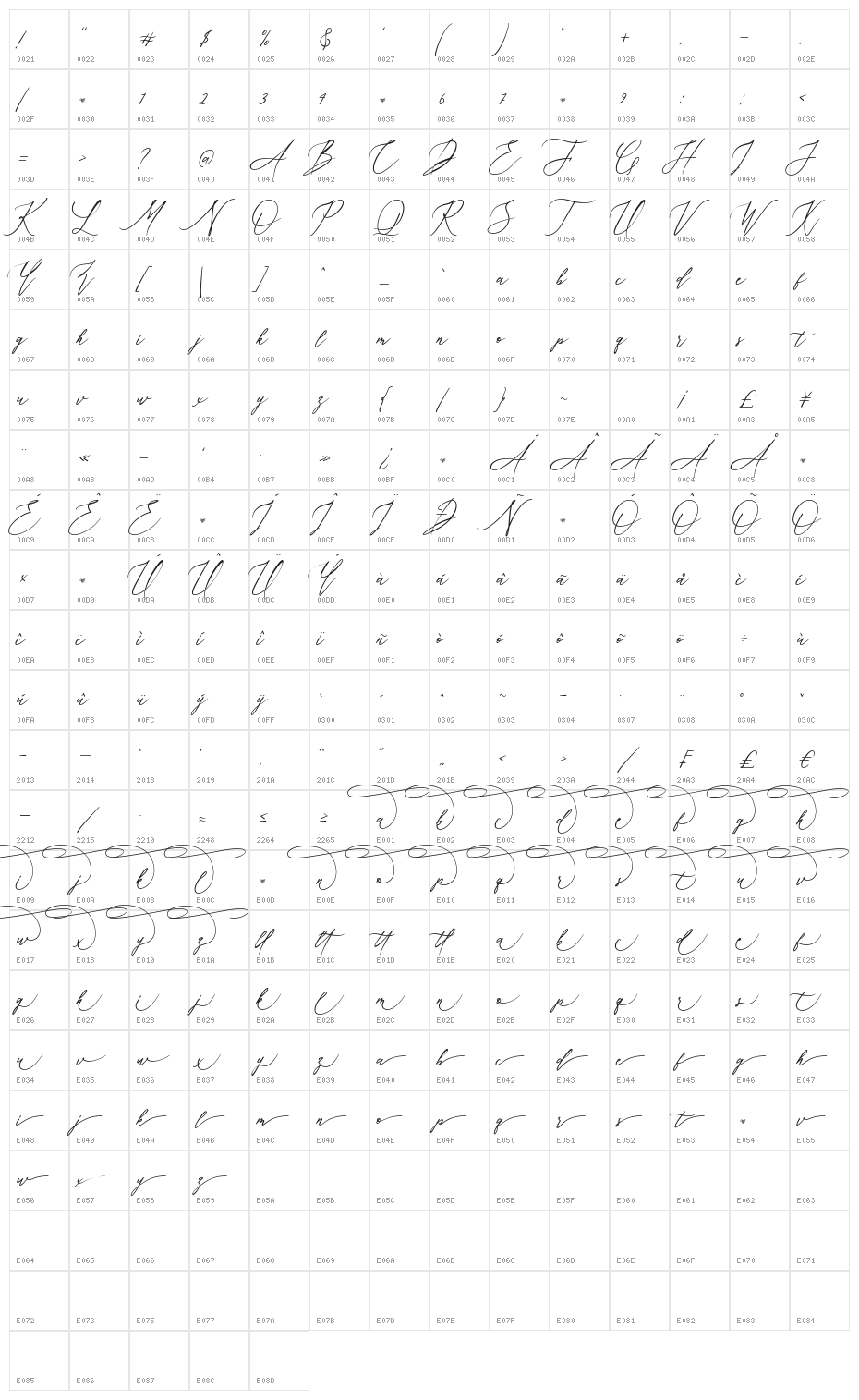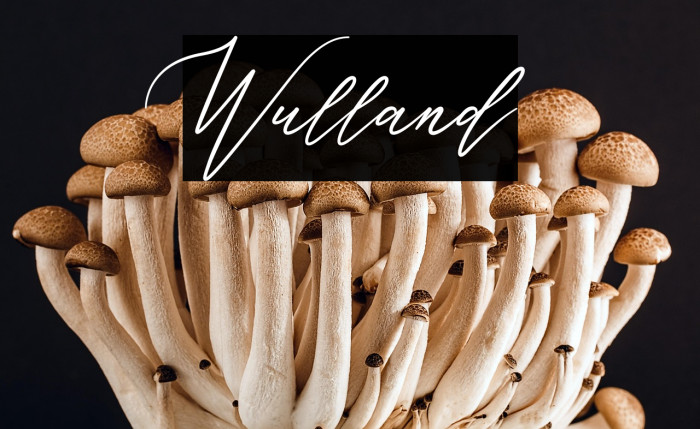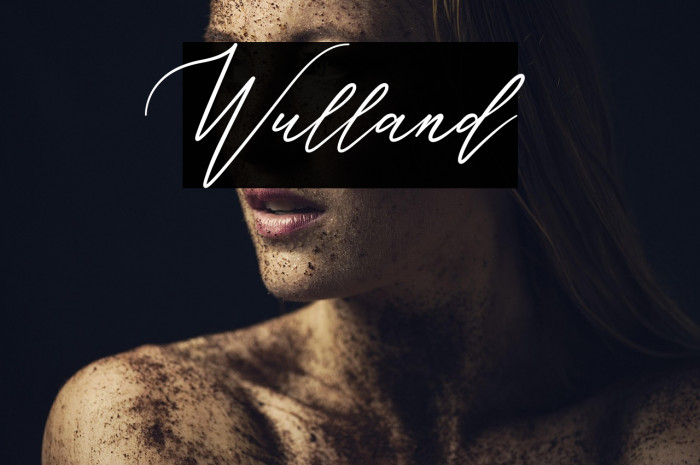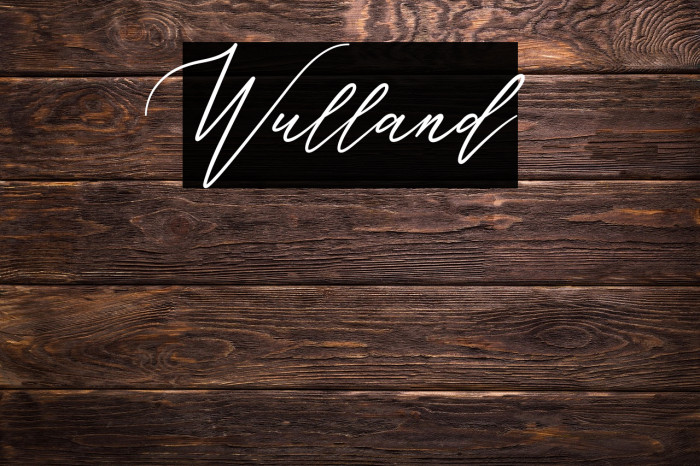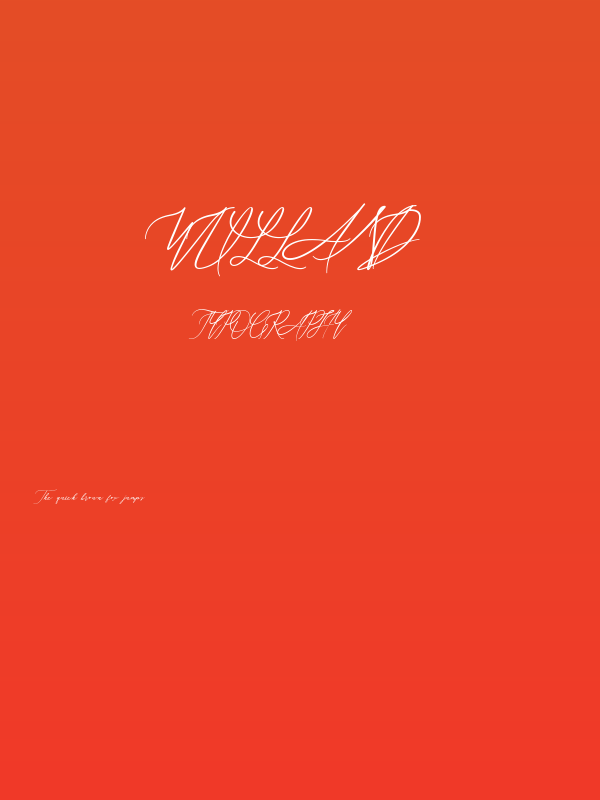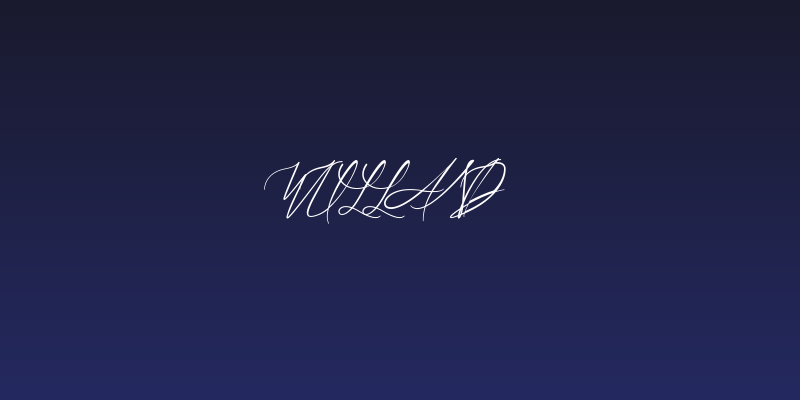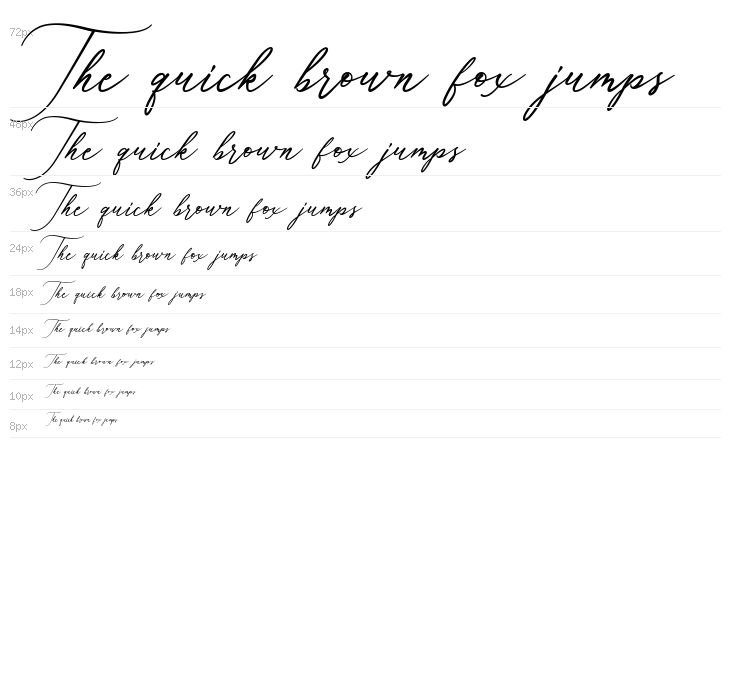
Wulland Font
Wulland Description
This font exudes elegance and sophistication with its flowing, cursive style. The letters are intricately designed with a high degree of flourish, making it ideal for formal invitations and decorative purposes. The uppercase letters are particularly ornate, featuring elaborate loops and swirls that add a touch of grandeur. The lowercase letters maintain a consistent style, offering a balance between readability and artistic flair. The numbers and special characters are equally stylized, ensuring a cohesive look across all text elements. This font is perfect for projects that require a touch of class and elegance.
| Use Case | Logos, Invitations, Decorative text |
| Proposed Projects | Wedding invitations, luxury branding, greeting cards, and decorative posters. |